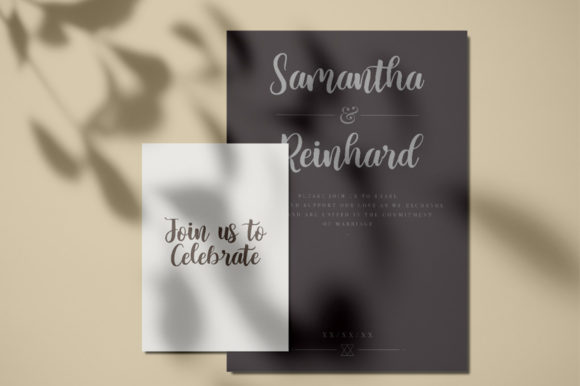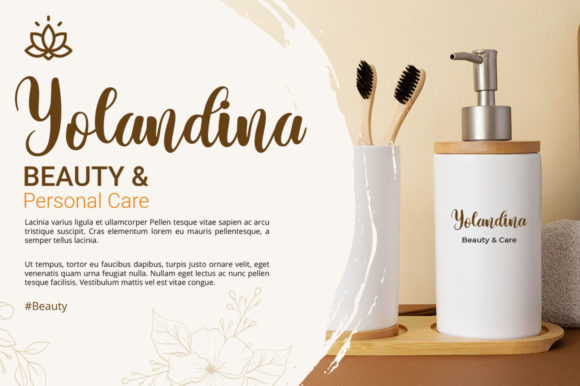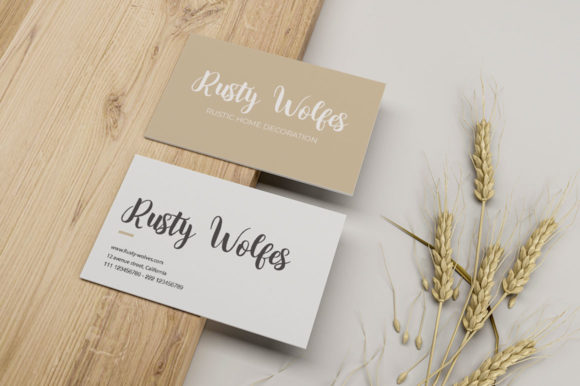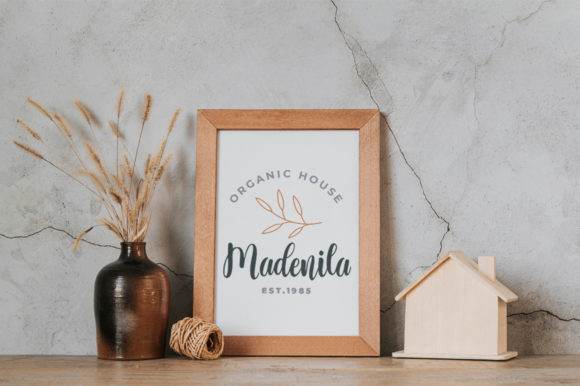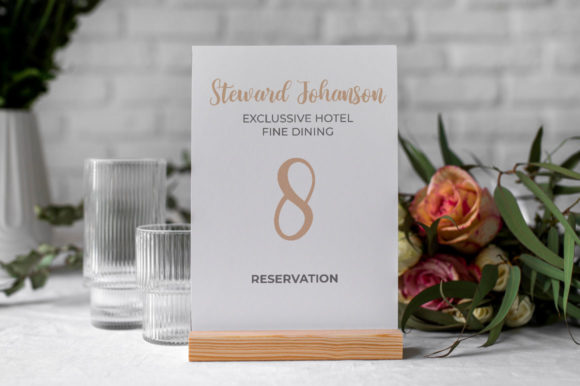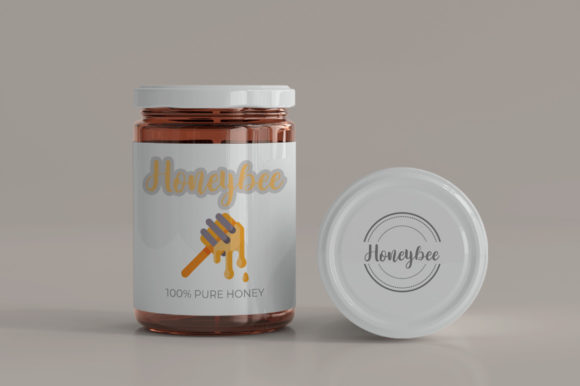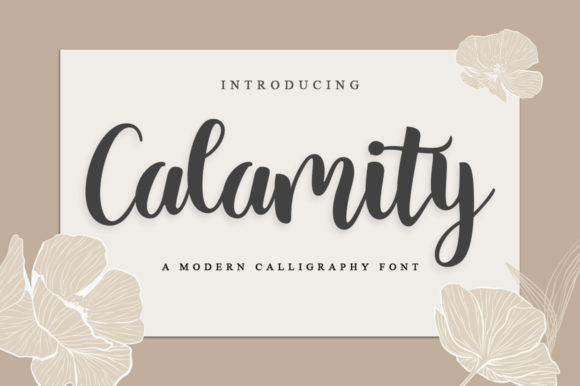
Introducing Calamity Font: The Epitome of Elegance and Sophistication
In the world of typography, a font can make or break the visual appeal of a design project. For designers and crafters seeking a script font that exudes refinement and luxury, look no further than Calamity Font. This chic, elegant font is designed to elevate any project with its sophisticated charm, stylish alternates, and ligatures.
The Characteristics of Calamity Font
Calamity Font is a meticulously crafted script font that boasts a range of features, making it an ideal choice for designers and crafters. Some of its key characteristics include:
- Sophisticated and Elegant Design: Calamity Font features a refined design that is perfect for projects requiring a touch of luxury and sophistication.
- Stylish Alternates and Ligatures: The font comes with a range of stylish alternates and ligatures, allowing designers to add a unique touch to their projects.
- High Versatility: Calamity Font is suitable for a wide range of projects, from branding and advertising to packaging and digital media.
- Easy to Read: Despite its elegant design, Calamity Font remains highly legible, making it perfect for body text and headlines.
What Makes Calamity Font Stand Out?
In a sea of script fonts, Calamity Font stands out for its exceptional quality and attention to detail. Here are some factors that set it apart:
- Unique Letterforms: Calamity Font features unique letterforms that are both elegant and stylish, making it perfect for designers seeking a distinctive look.
- Extensive Character Set: The font includes an extensive character set, covering a range of languages and special characters.
- Multilingual Support: Calamity Font supports multiple languages, making it an excellent choice for global brands and projects.
How to Use Calamity Font in Your Design Projects
Calamity Font is an incredibly versatile font that can be used in a variety of design projects. Here are some ideas to get you started:
- Branding and Logo Design: Use Calamity Font to create a sophisticated brand identity that exudes elegance and refinement.
- Wedding and Event Stationery: The font’s elegant design makes it perfect for wedding invitations, stationery, and event branding.
- Packaging Design: Calamity Font can add a touch of luxury to product packaging, making it ideal for high-end brands.
- Digital Media: The font can also be used in digital media, such as social media graphics, website headers, and email newsletters.
Tips for Getting the Most Out of Calamity Font
To maximize the impact of Calamity Font, consider the following tips:
- Experiment with Alternates and Ligatures: Take advantage of the font’s stylish alternates and ligatures to add visual interest to your design.
- Pair with Complementary Fonts: Combine Calamity Font with complementary fonts to create a unique and harmonious typography system.
- Adjust Font Sizes and Line Heights: Experiment with different font sizes and line heights to create visual hierarchy and emphasize key elements.
Calamity Font is a stunning script font that embodies elegance and sophistication. With its stylish alternates, ligatures, and extensive character set, it’s the perfect choice for designers and crafters seeking to elevate their projects. Whether you’re working on branding, packaging, or digital media, Calamity Font is sure to make a lasting impression.